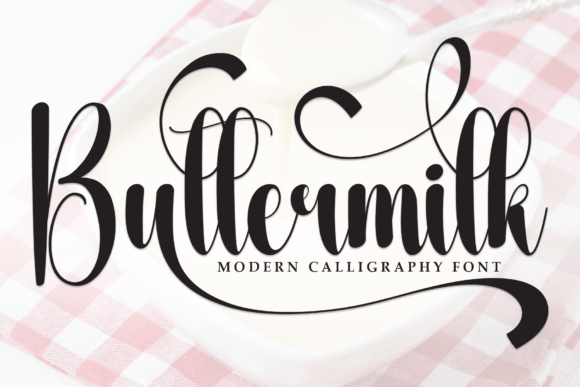
Welcome to the realm of Buttermilk Font, where elegance and creativity converge to create a typographic masterpiece. This enchanting script font, meticulously crafted by Roronoa zoro.S.P.D, is a tribute to the beauty of handwritten artistry, capturing the essence of sophistication and grace.
Buttermilk Font belongs to the esteemed family of script fonts, renowned for their sweeping curves, delicate flourishes, and timeless charm. Each letter dances across the page like a graceful ballerina, exuding an aura of refinement and poise. Whether you seek to create an elegant logo that exudes professionalism or design heartfelt invitations that leave a lasting impression, Buttermilk Font is your steadfast companion.
Buttermilk Font is not merely a collection of characters; it's an invitation to unleash your creativity and elevate your designs to new heights. Its versatility knows no bounds, seamlessly adapting to a myriad of projects, from social media posts and branding materials to wedding invitations and DIY creations. Its ethereal beauty adds a touch of magic to any project, transforming ordinary words into captivating works of art.
With Buttermilk Font, you hold the key to unlocking your creative potential. It's the perfect font for those who seek to add a touch of elegance and sophistication to their designs. Its intricate details and flowing lines will captivate your audience, leaving them spellbound by the sheer beauty of your creations.
Buttermilk Font is more than just a font; it's an experience. It's the embodiment of grace, elegance, and creativity. Embrace its enchanting allure and watch as your designs blossom into masterpieces that leave an indelible mark on the hearts and minds of all who behold them.